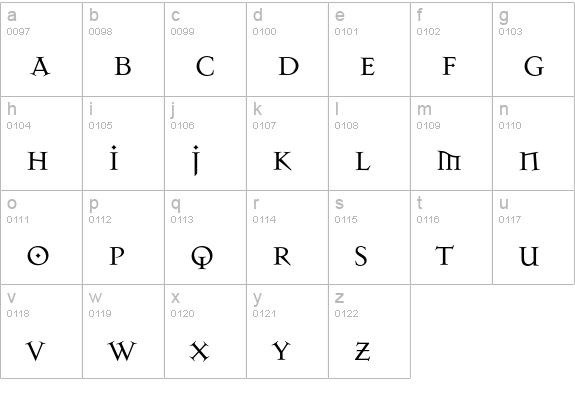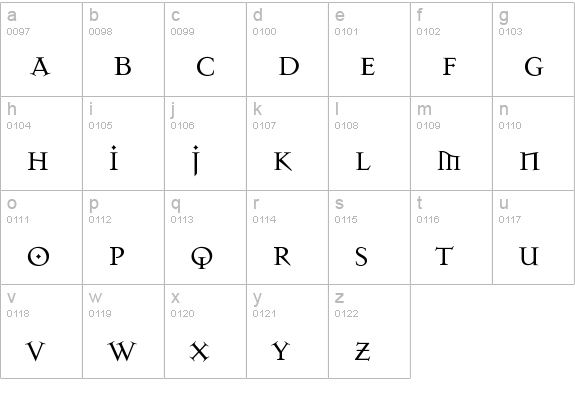
MansonAlternate Font Details
Introducing MansonAlternate Font, a captivating and versatile typeface that will captivate and inspire your creative projects. With its bold and unique letterforms, MansonAlternate Font brings a modern and edgy touch to any design, making it perfect for logos, branding, headlines, posters, and more. This font features a stunning alternate style that adds a touch of sophistication and elegance. The meticulously crafted letterforms are filled with subtle details that make it stand out from the crowd. Whether you're looking to create a striking headline or a memorable logo, MansonAlternate Font is sure to leave a lasting impression. But what makes MansonAlternate Font even more appealing is that it is available for free download at FontsMarket.com. Yes, you read that right – this extraordinary font can be yours without spending a dime! With just a few clicks, you can enhance your design projects with the stylish and impactful MansonAlternate Font. So don't miss out on this amazing opportunity to elevate your designs. Visit FontsMarket.com today and download MansonAlternate Font for free. Unleash your creativity and let MansonAlternate Font be the driving force behind your next design masterpiece.